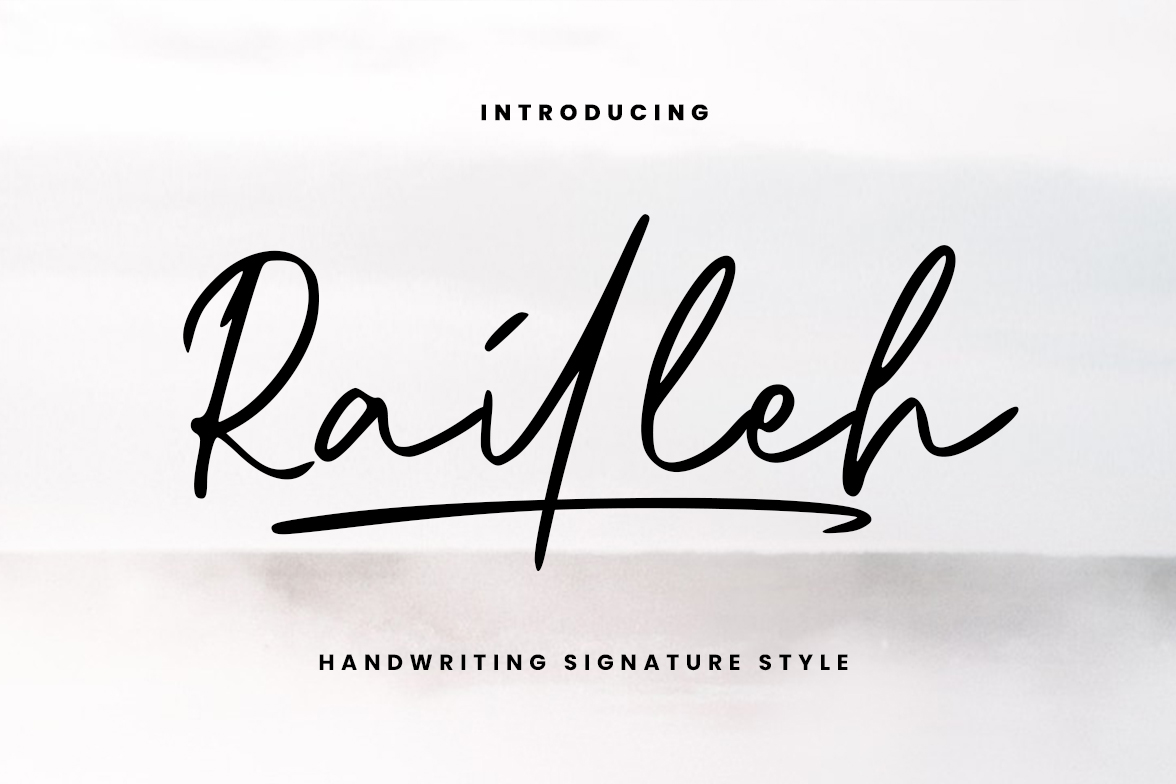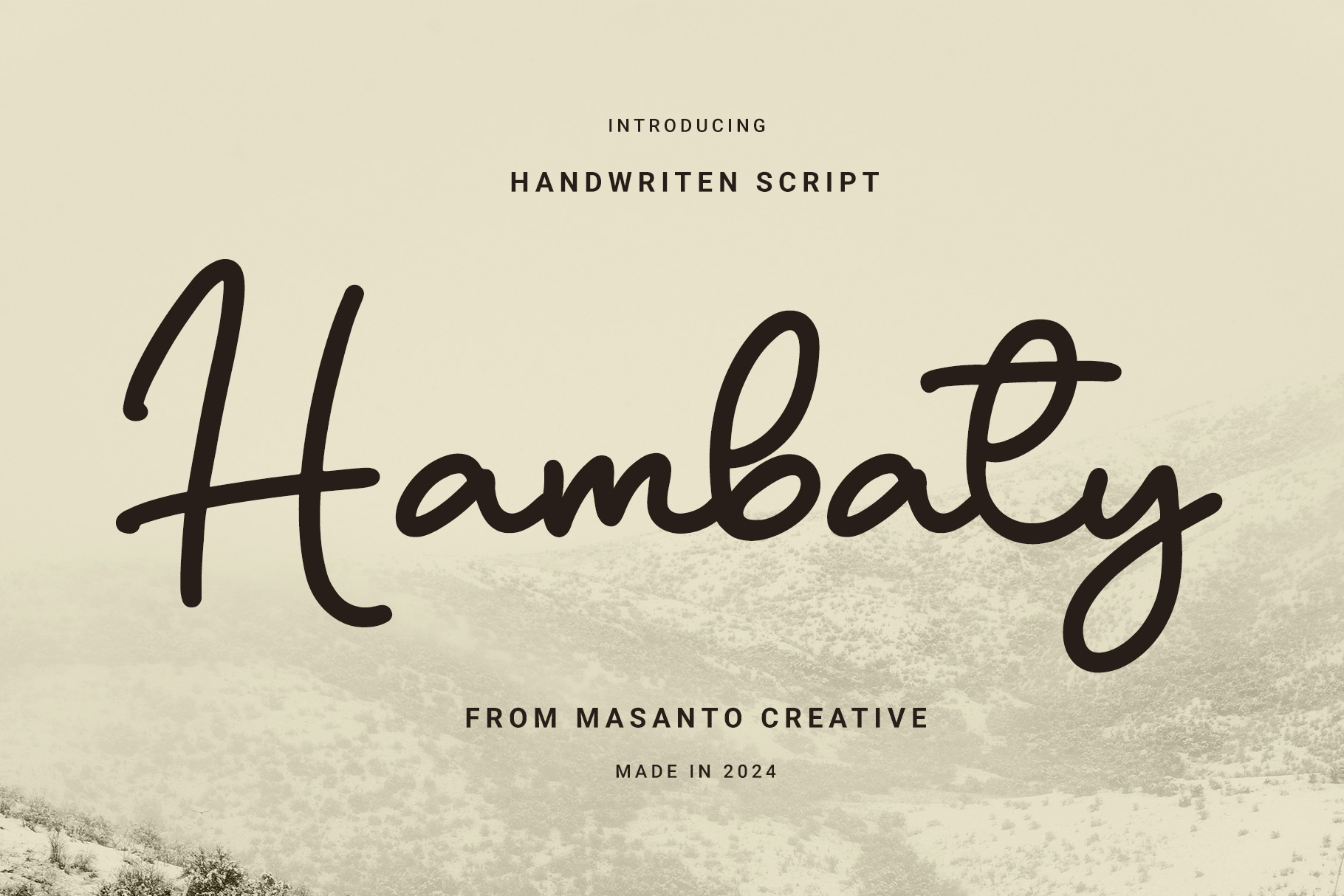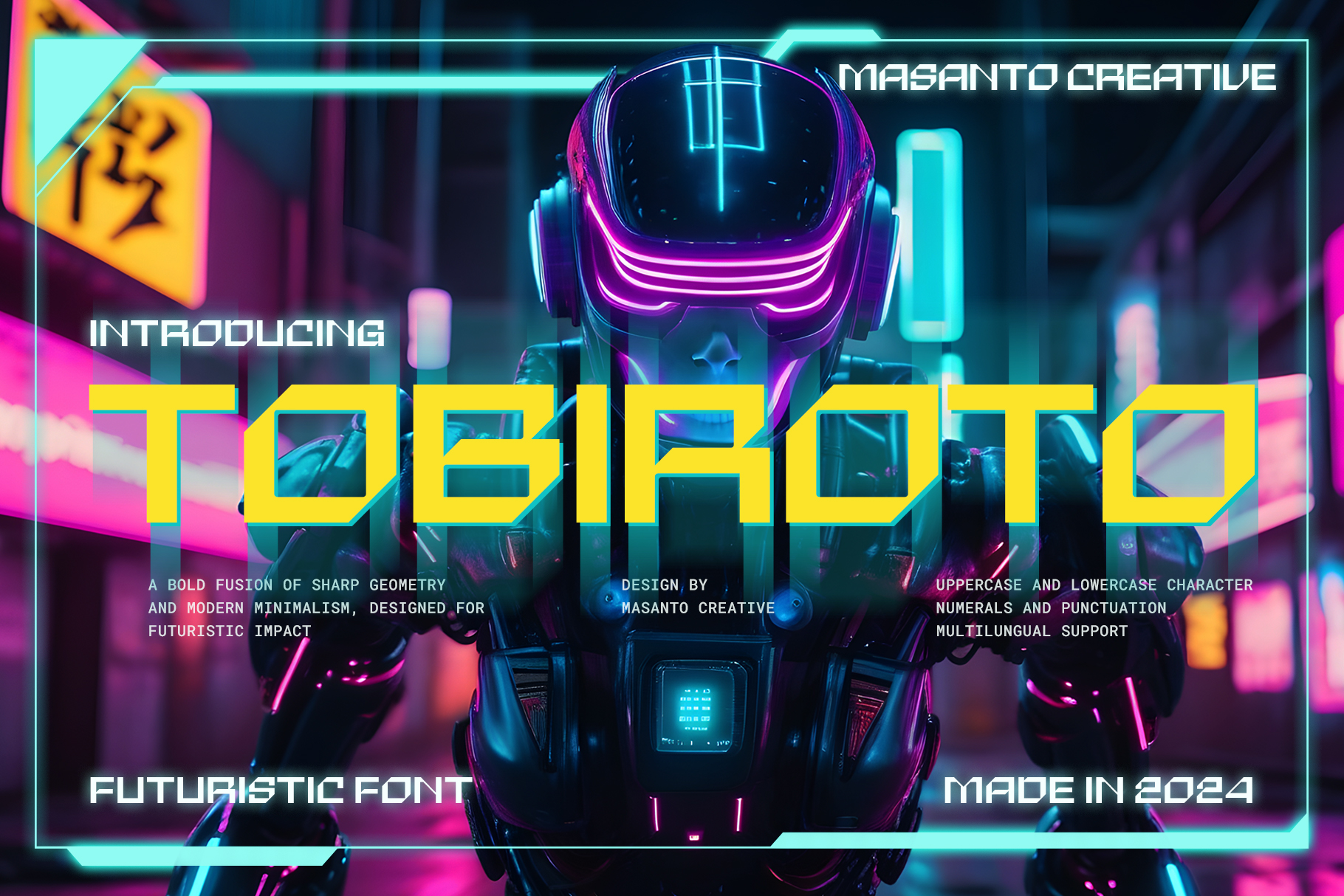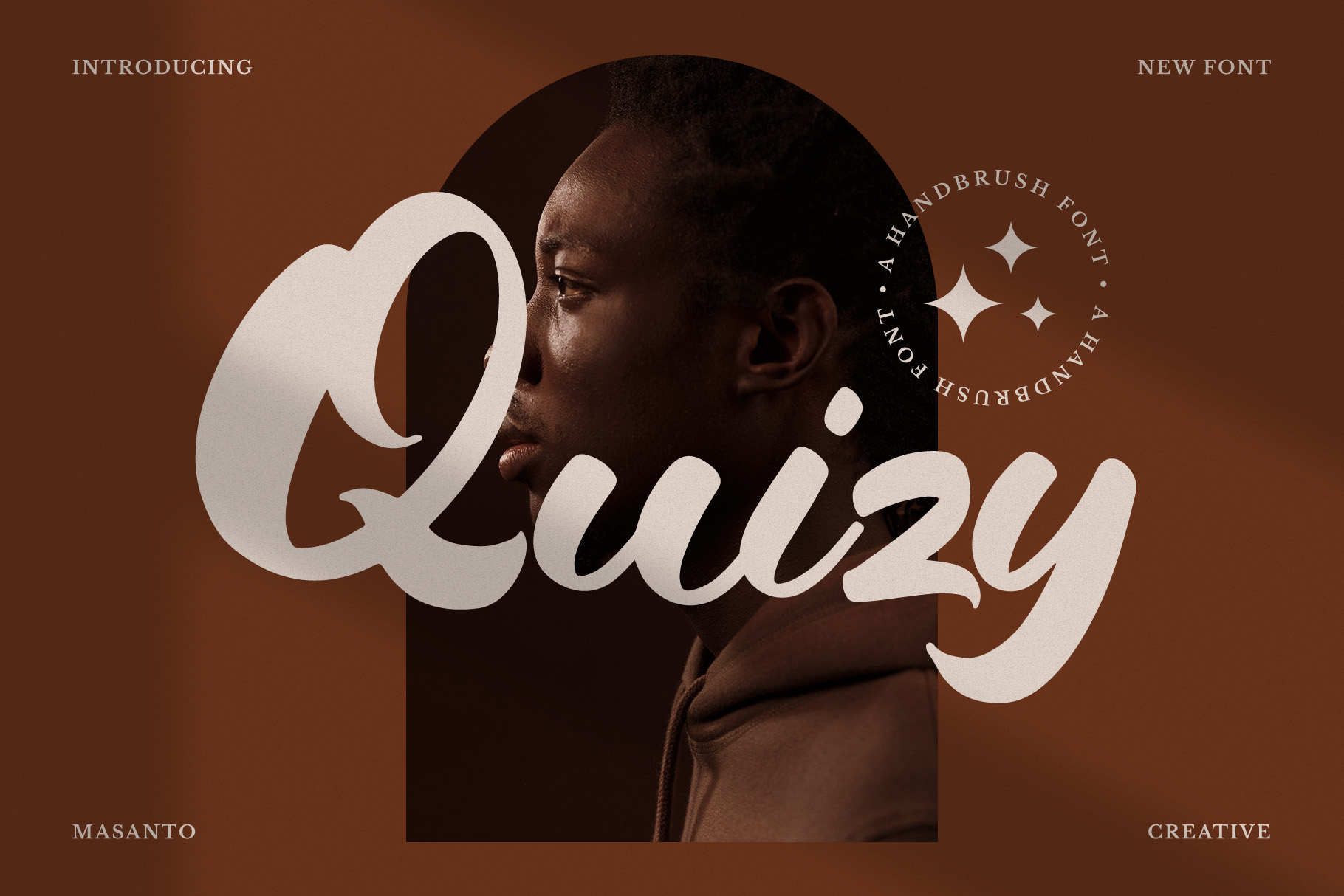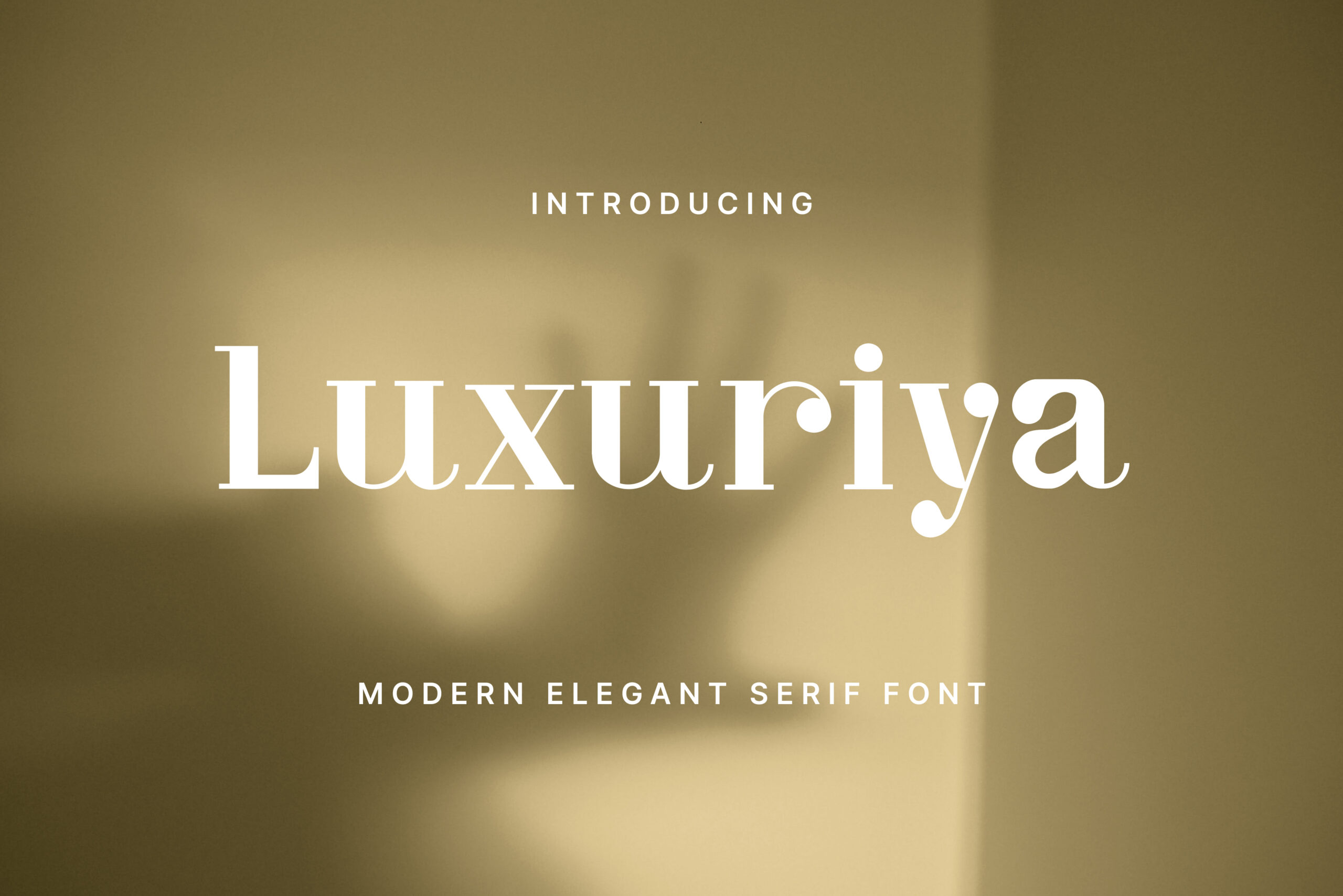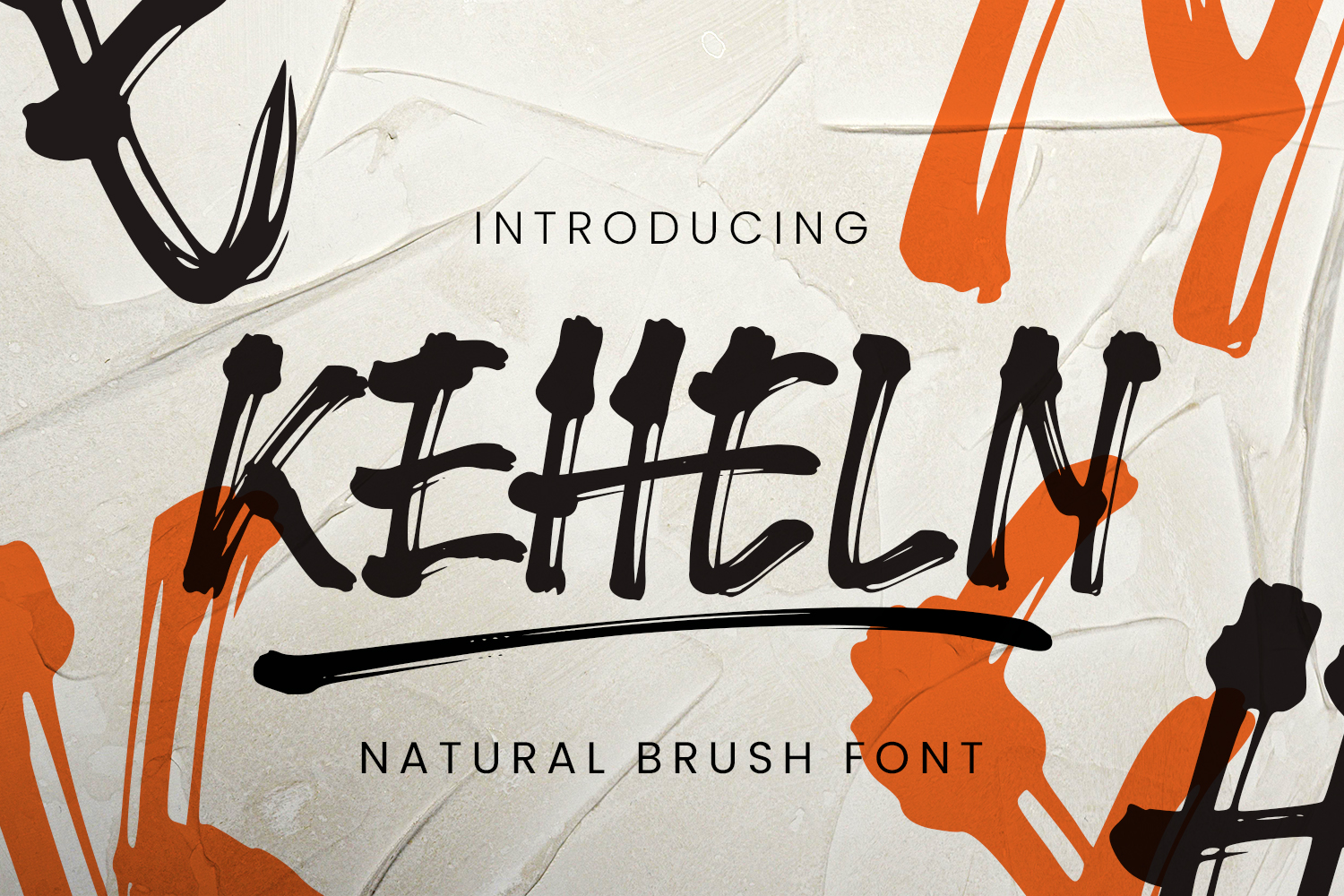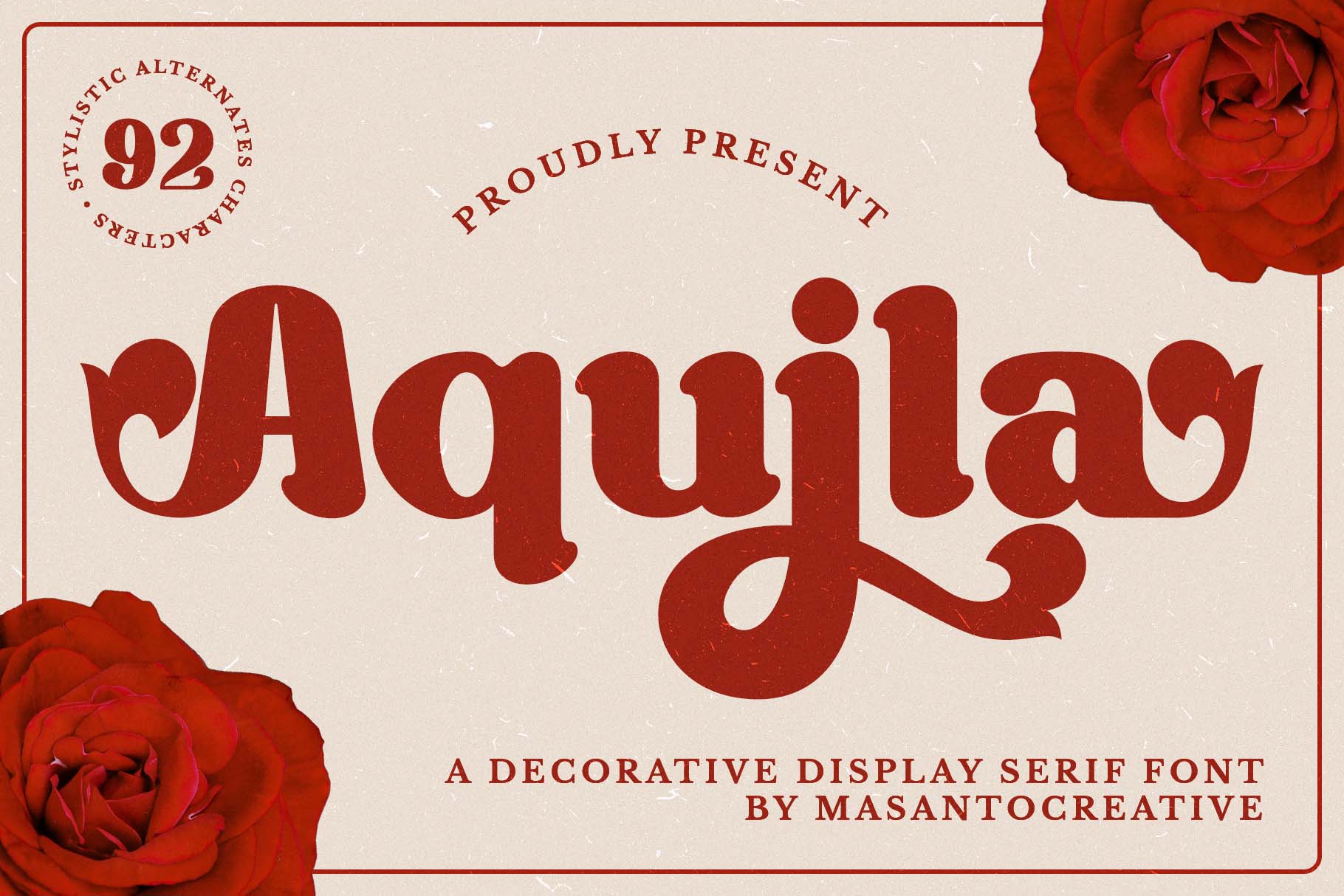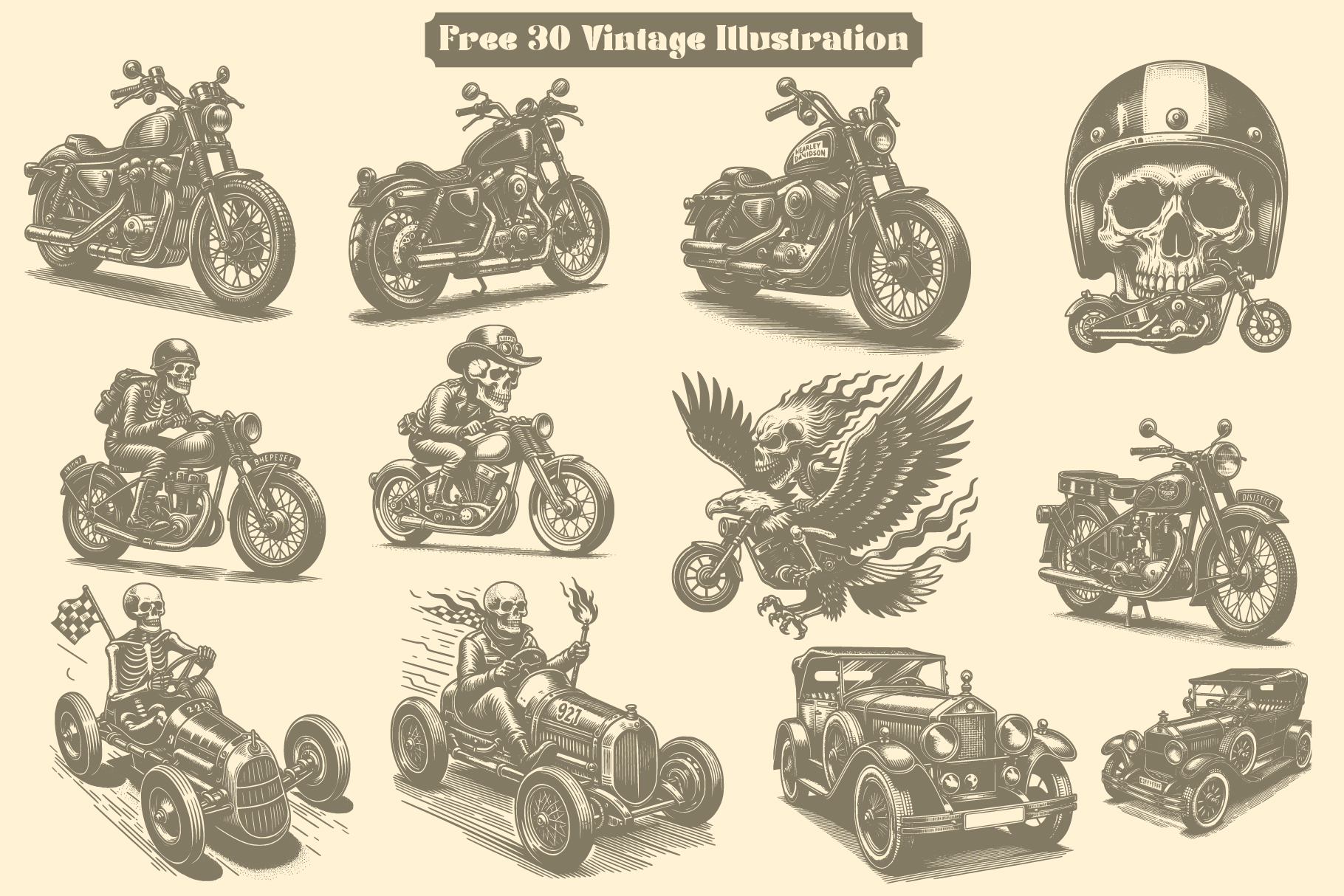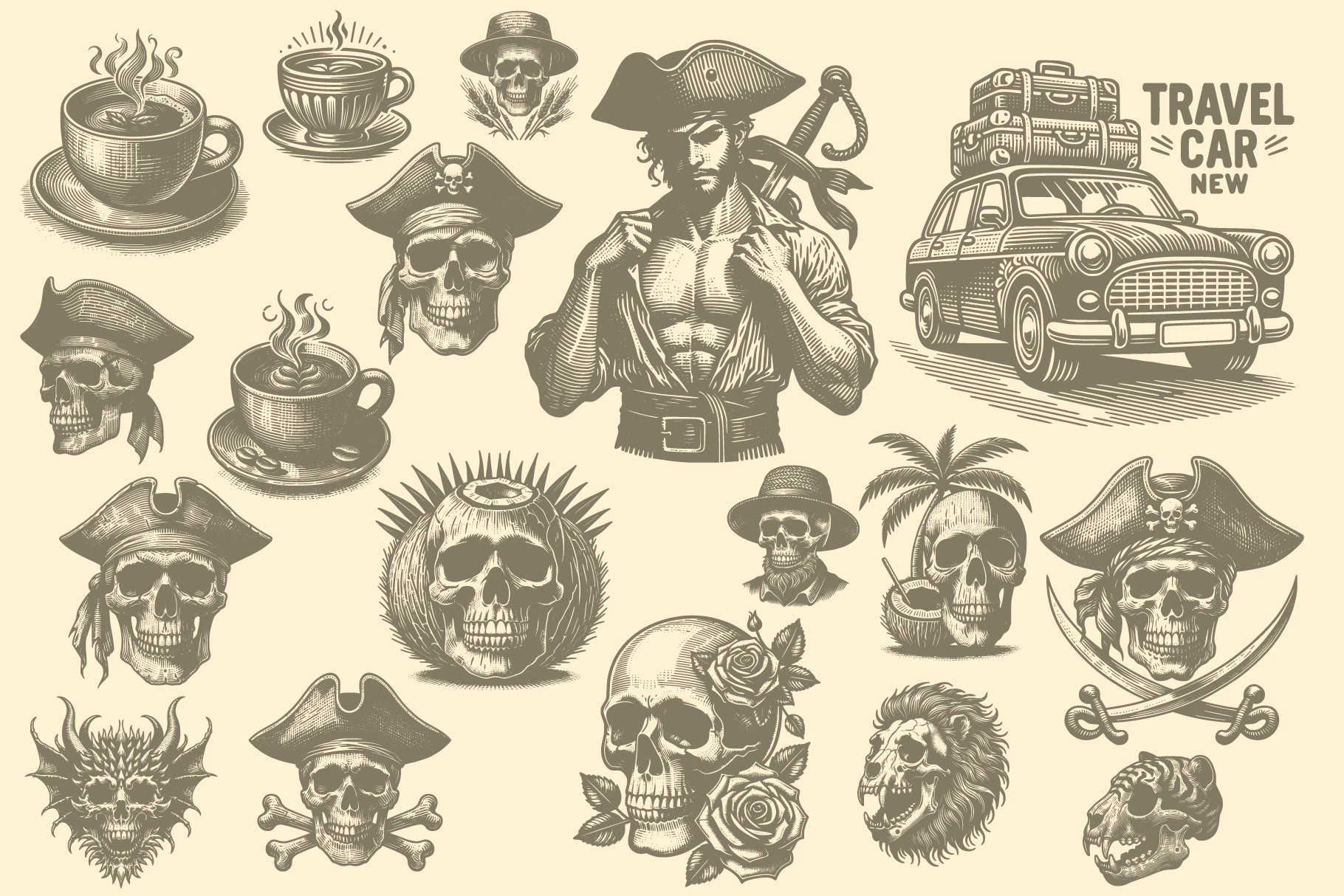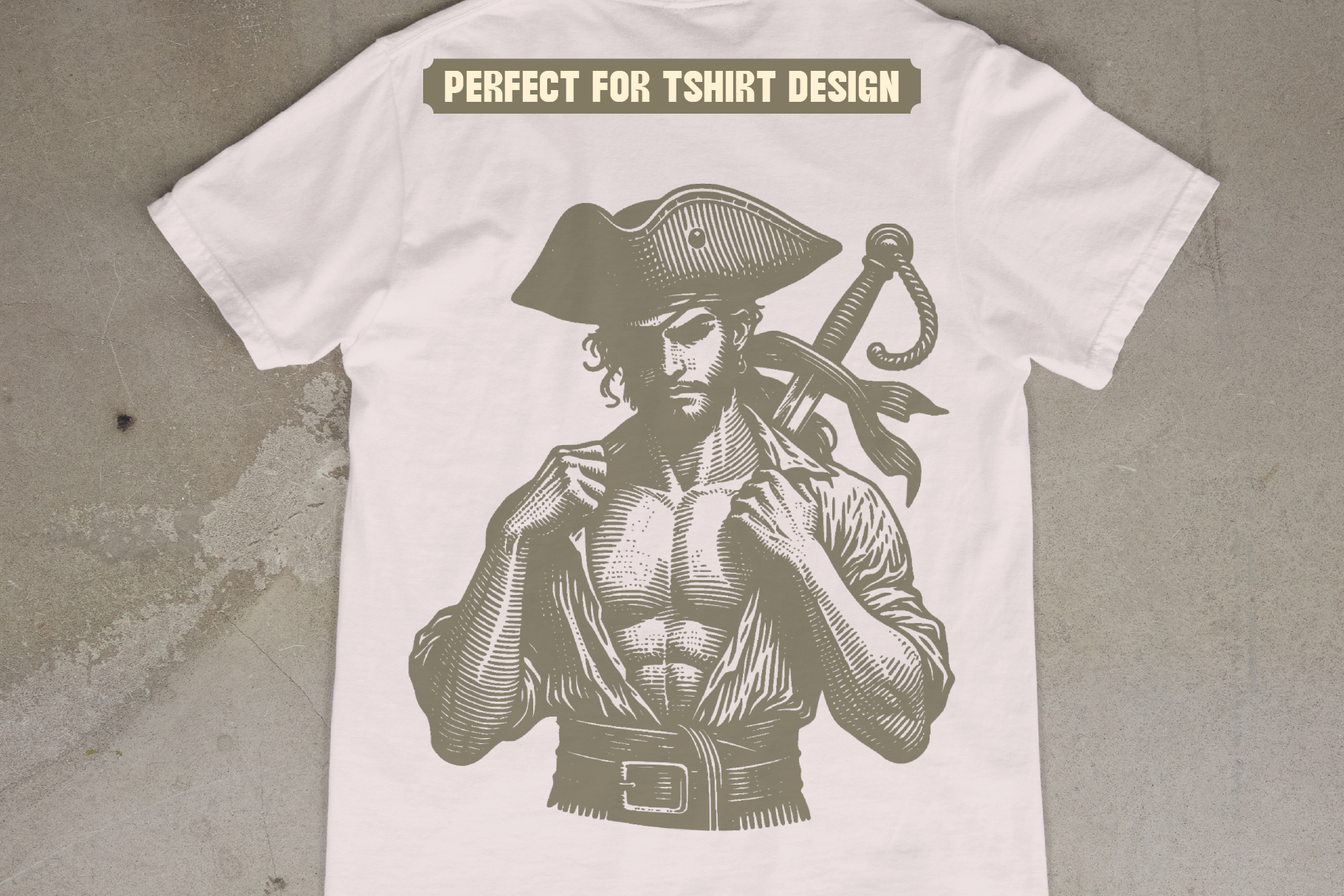
20 Font Bundle – FREE 30 Vintage Illustration Designs
An exclusive collection of 20 premium fonts that span a variety of styles, from vintage to modern. This bundle comes with 30 free vintage illustrations, making it the perfect choice for designers seeking both classic and contemporary inspiration, A versatile font bundle featuring a variety of styles, from modern and masculine to elegant and playful. Perfect for branding, logos, posters, editorials, and all your creative projects.
• Versatile: A wide range of styles for diverse design needs.
• High Quality: Professionally crafted fonts for standout designs.
• Aesthetic Value: Unique fonts for memorable creations.
This bundle is the perfect choice for designers, content creators, and business owners who want to elevate their designs with ease and efficiency!
• Ligature & Stylistic alternate